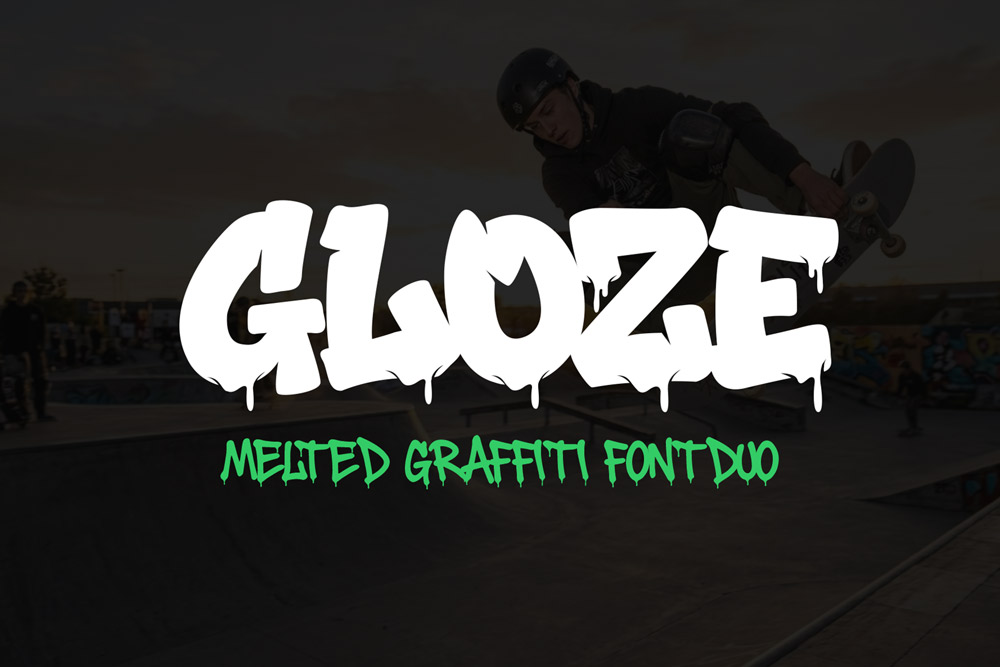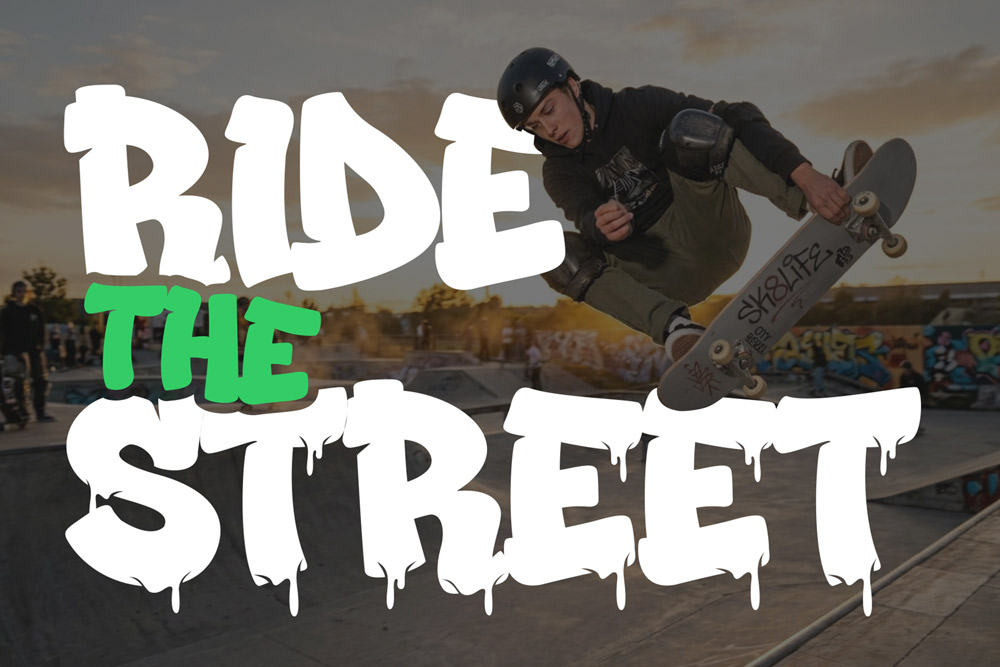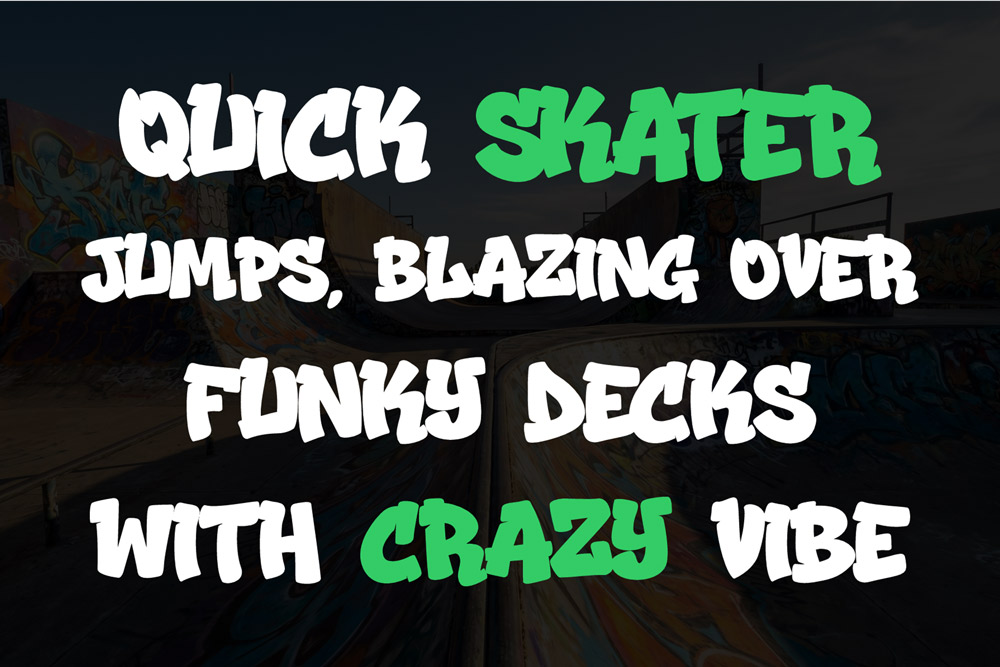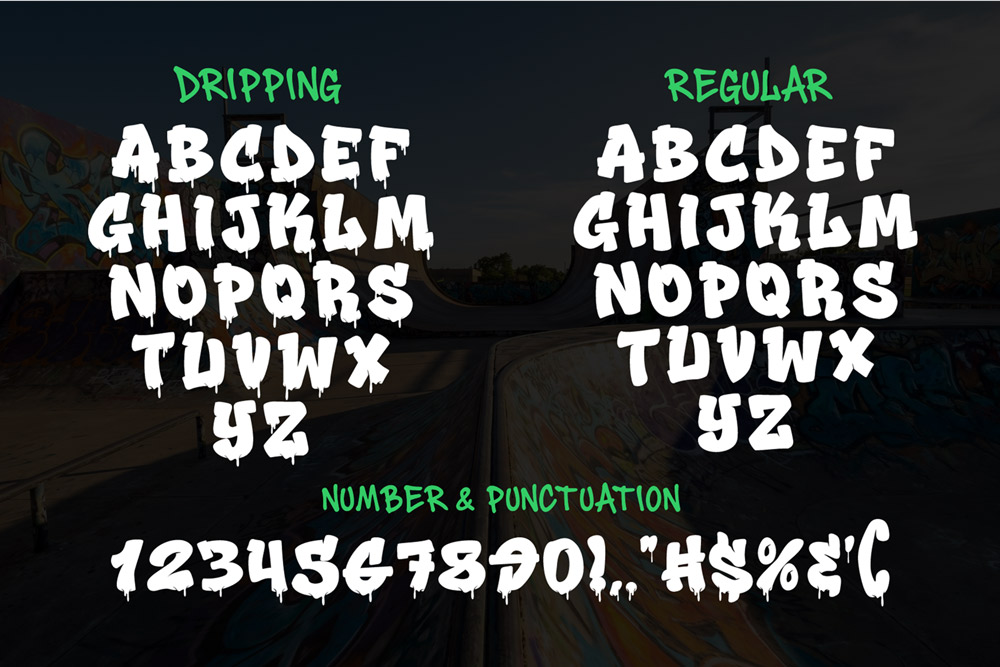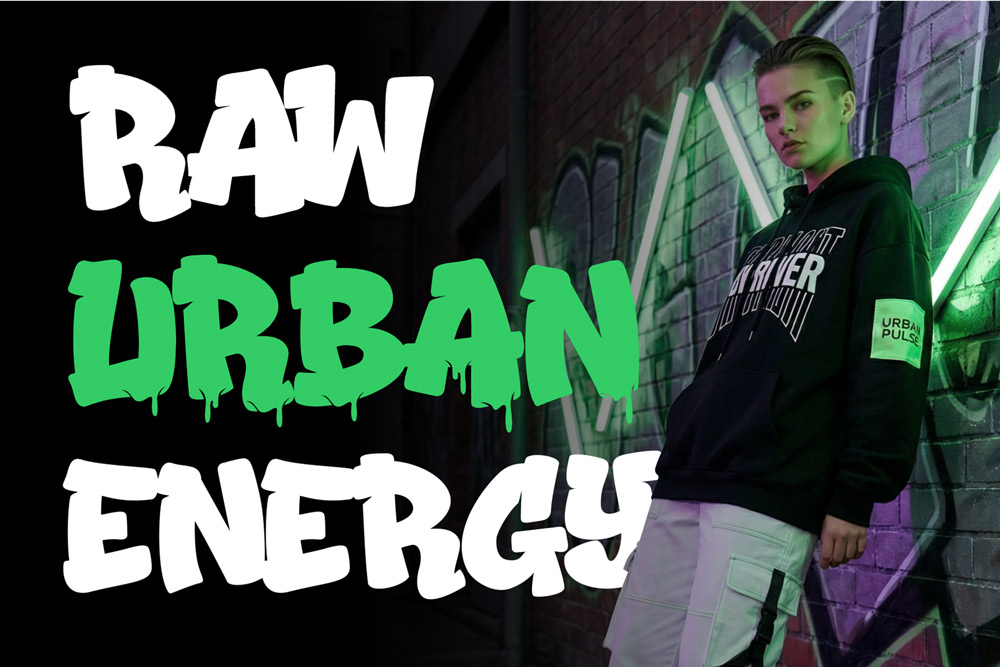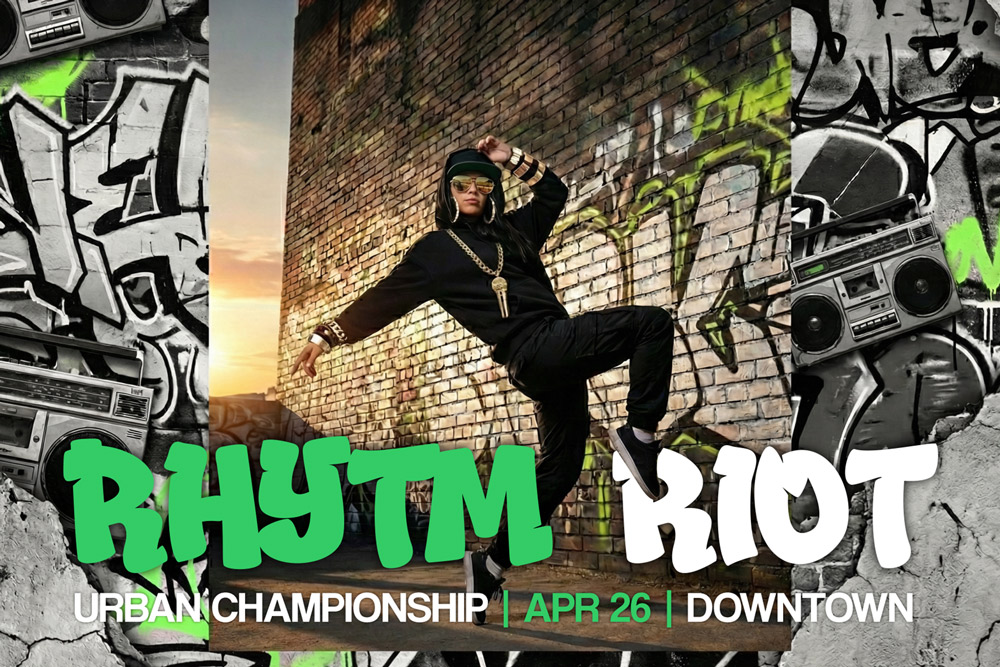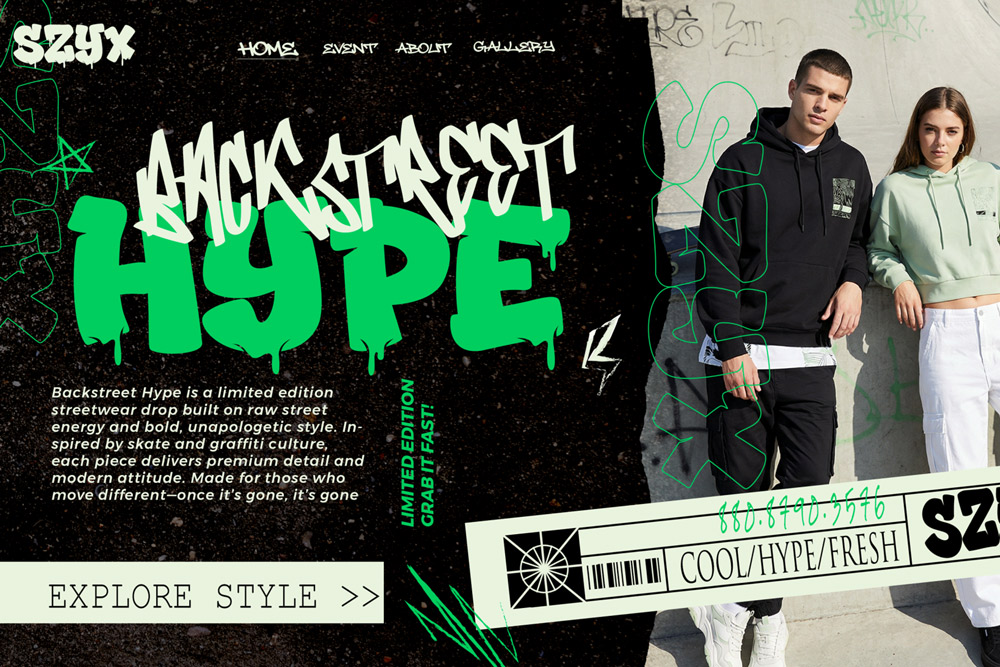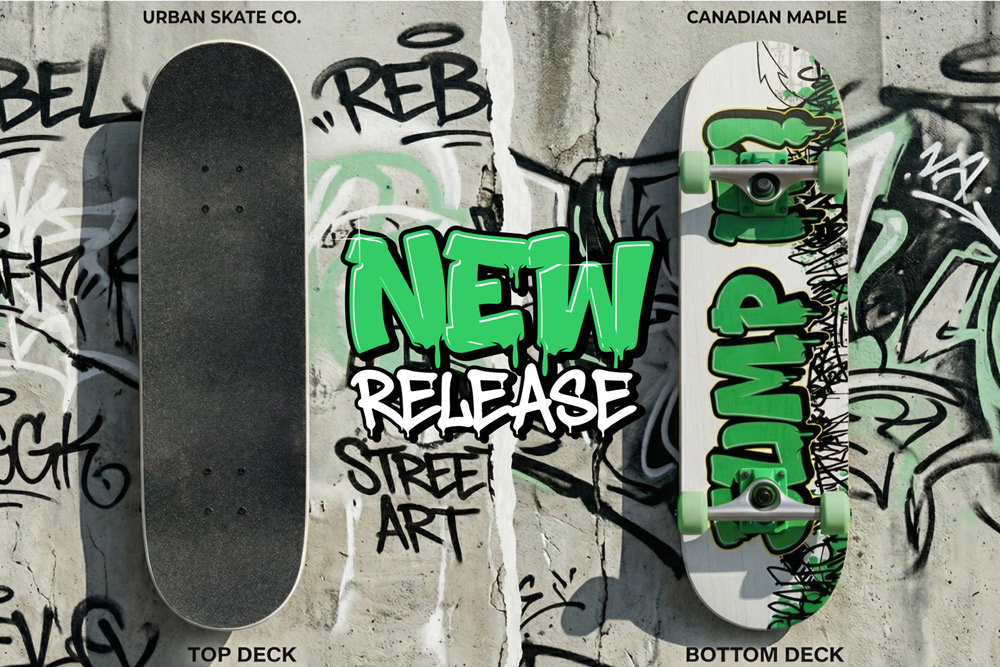
About Gloze
This dripping graffiti font stands out with its unique melted style, making it perfect for designers who want a strong, rebellious, and expressive look. The organic drip details give every letter a handcrafted feel, turning simple typography into a striking visual statement. If you’re searching for a graffiti drip font that feels alive and dynamic, Gloze is your ultimate weapon.
Key Features of Gloze Dripping Graffiti Font
- Bold and expressive dripping graffiti font style
- Two unique styles: Regular & Drip/Melted
- Strong urban character for impactful designs
- Perfect for streetwear, posters, music covers, and branding
- High-quality letterforms with authentic graffiti texture
- Clean readability despite its wild aesthetic
Font Details
Gloze is crafted with attention to detail, combining both clean graffiti strokes and dripping effects to create a versatile urban graffiti font.
Uppercase Characters
This graffiti font includes a full set of uppercase letters designed with bold strokes and dripping accents, ensuring maximum visual impact for headlines, titles, and logos.
Number and Punctuation
Gloze comes with complete numbers and punctuation, making it a fully functional display graffiti font suitable for professional design use.
Multilingual Support
Designed for global creators, this dripping font supports multiple languages, allowing you to expand your creative reach without limitations.
Why Designers Love Gloze
Designers love Gloze because it perfectly balances chaos and control. This dripping graffiti font is expressive but still readable, making it ideal for both experimental and commercial projects. The dual-style feature allows designers to switch between a cleaner graffiti look and a more aggressive melted style, giving more creative freedom in one font package.
Another reason why this urban graffiti font stands out is its authenticity. Unlike generic fonts, Gloze captures the real essence of street culture with natural drip effects and bold strokes that feel hand-painted. This makes it highly desirable for branding projects that require a strong identity.
Additionally, the versatility of this graffiti drip font allows it to be used across different industries—from fashion and music to digital content and advertising. Designers can rely on Gloze to deliver a consistent and powerful visual tone.
Perfect For
Gloze is the perfect dripping graffiti font for:
- Streetwear branding
- Poster and flyer design
- Music album covers
- YouTube thumbnails and social media graphics
- Logo design with urban style
- Skateboard and hip-hop culture visuals
If you’re aiming to create bold and eye-catching designs, this graffiti display font will help your work stand out instantly.
Powerful Closing Statement
Gloze is more than just a dripping graffiti font—it’s a statement of urban expression. With its bold shapes, melting textures, and authentic street style, this graffiti font empowers designers to break boundaries and create visuals that demand attention. Whether you’re building a brand, designing merch, or crafting digital art, Gloze gives you the edge you need to stand out in a crowded creative world. If you’re serious about impactful typography, Gloze is the font that delivers raw energy and unforgettable style.